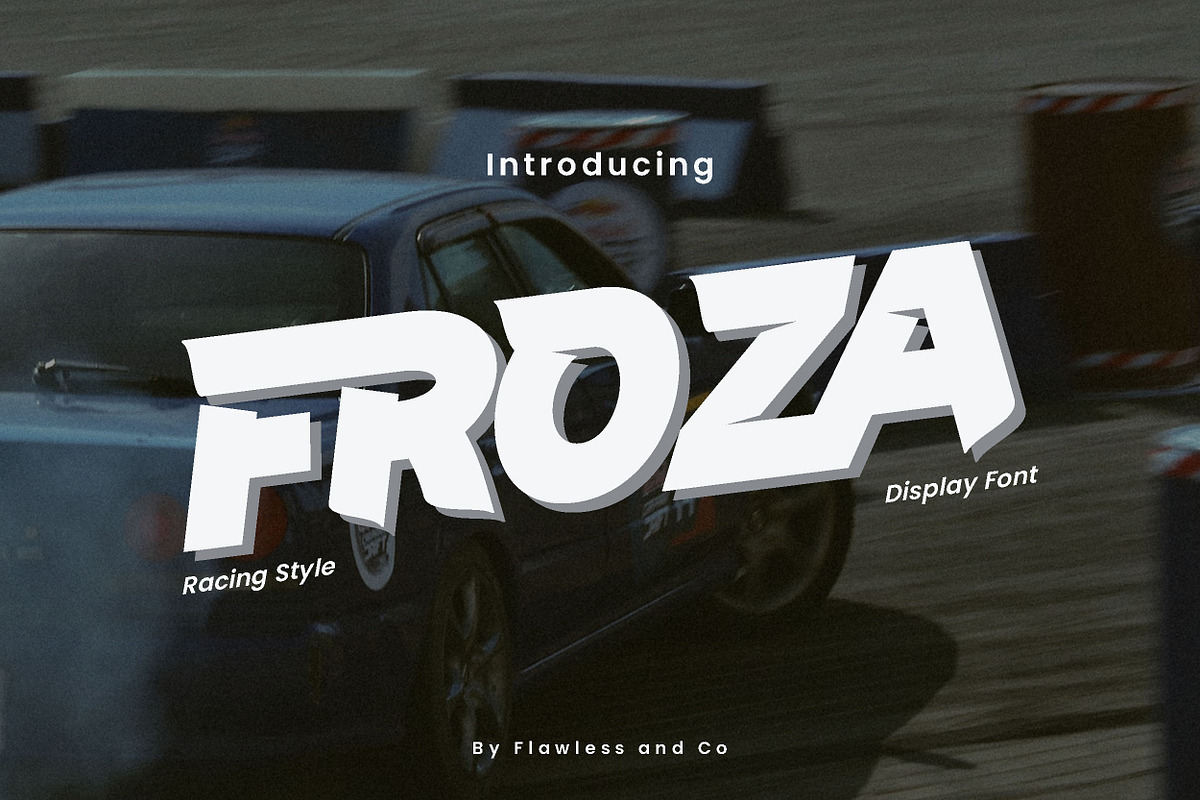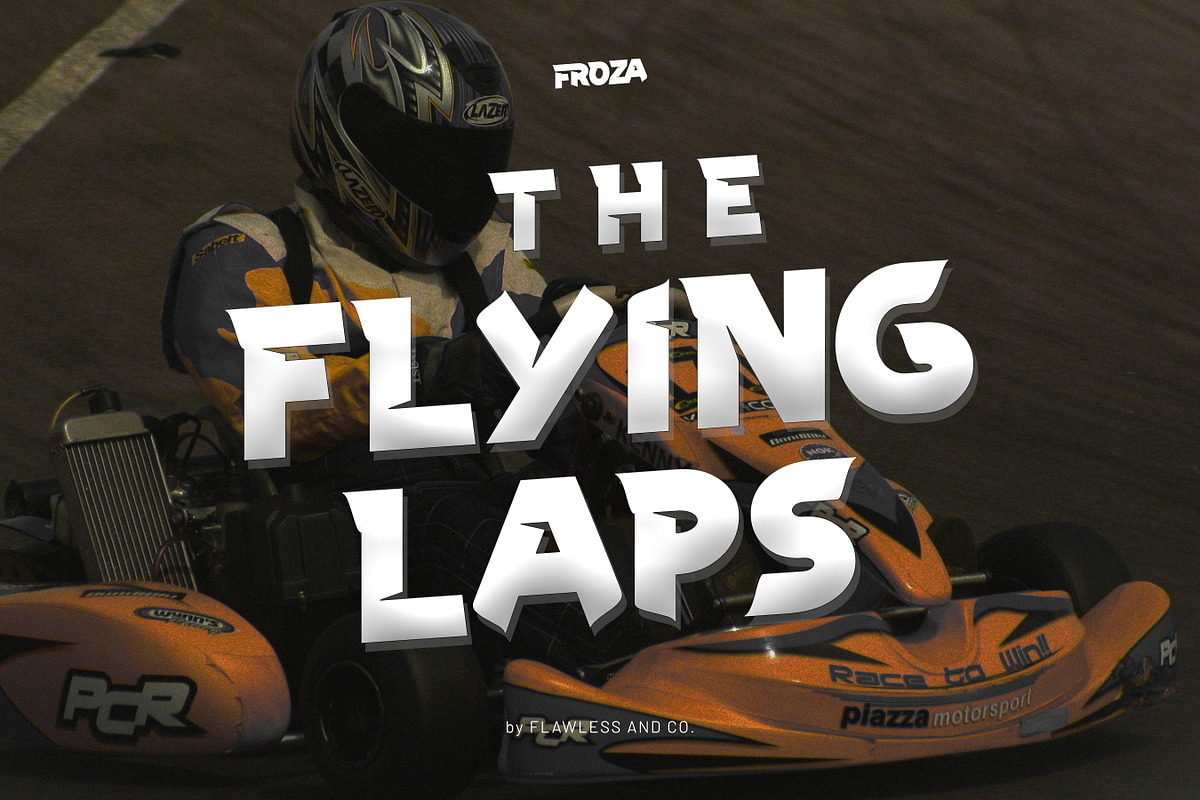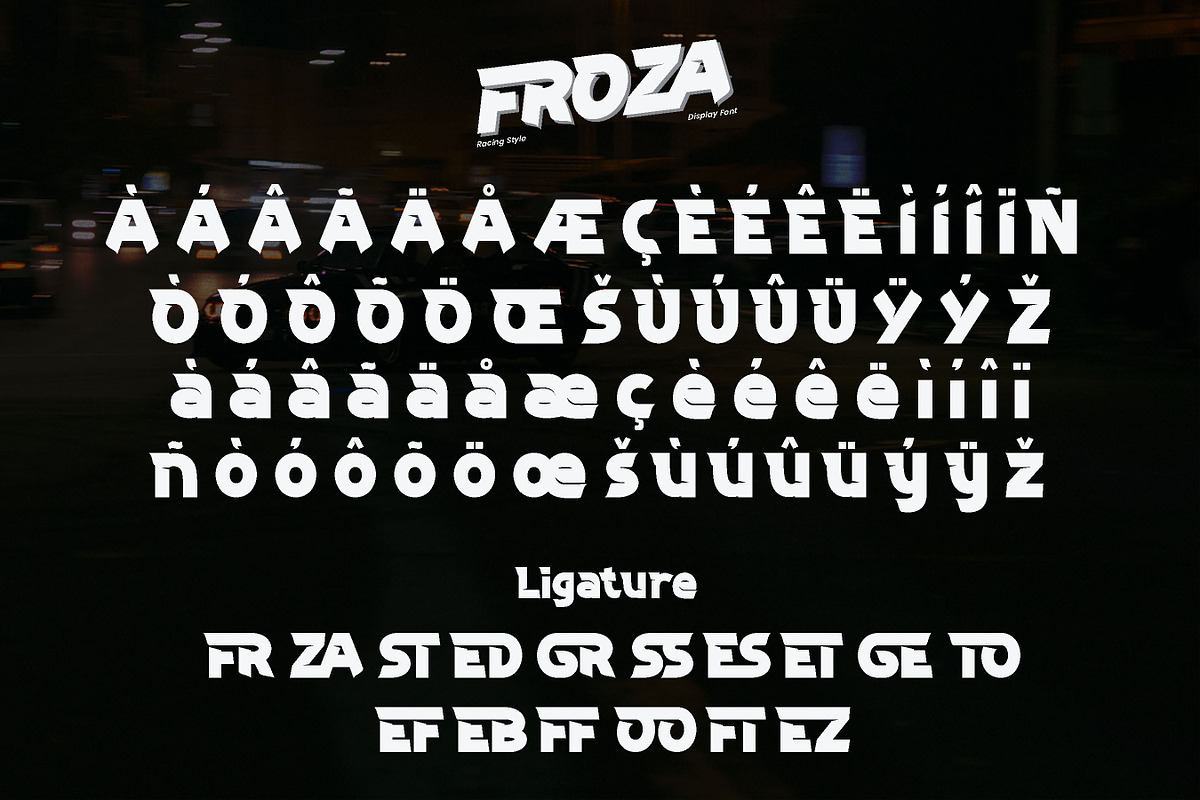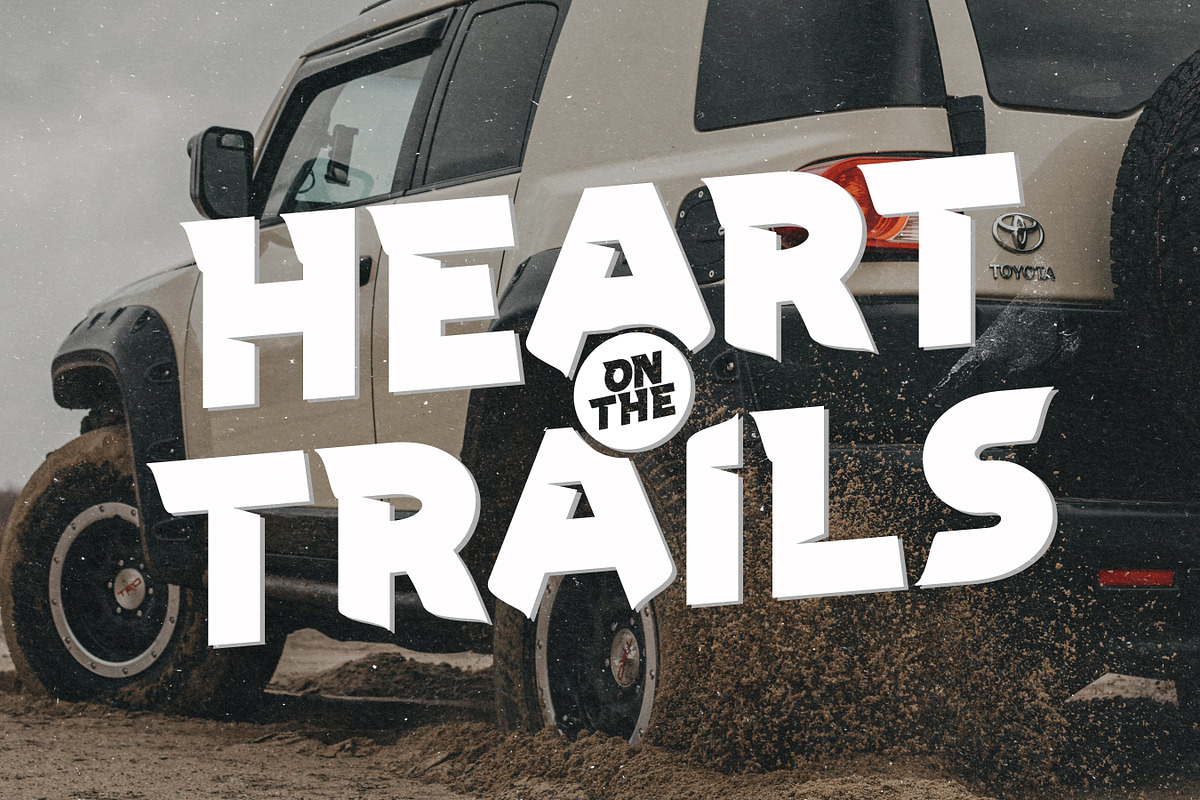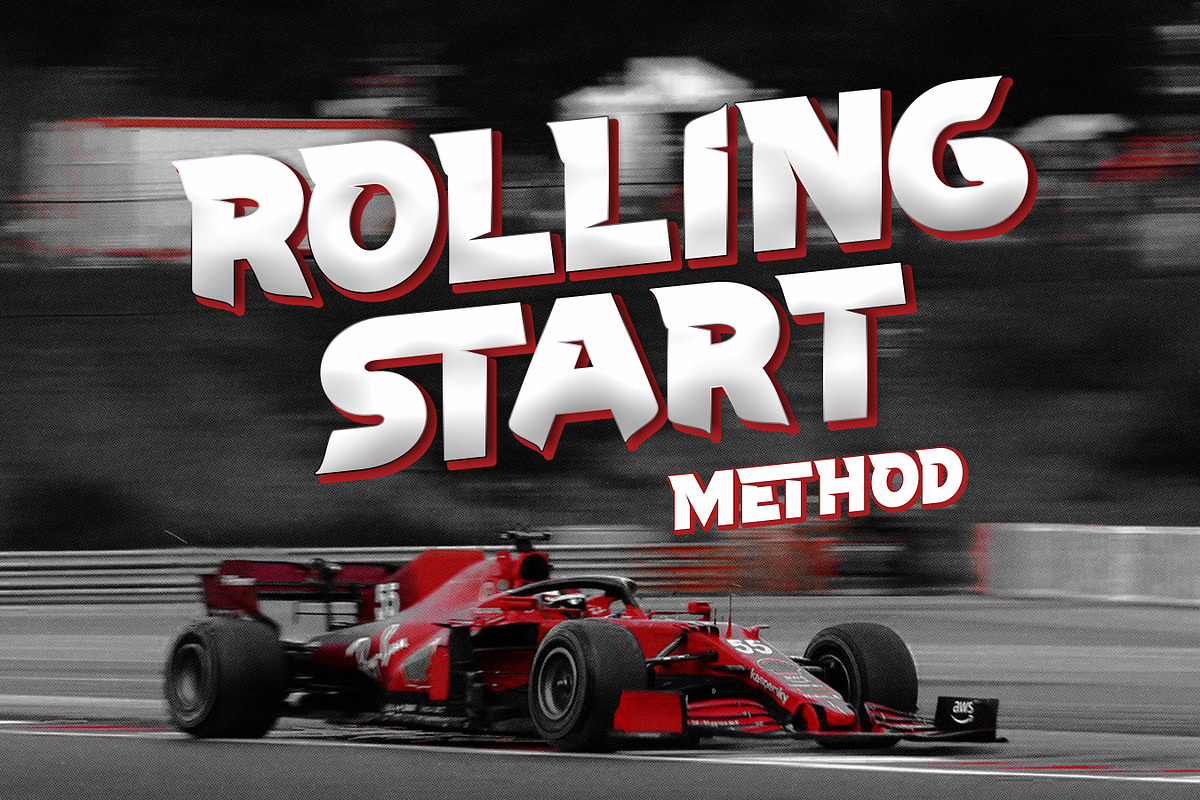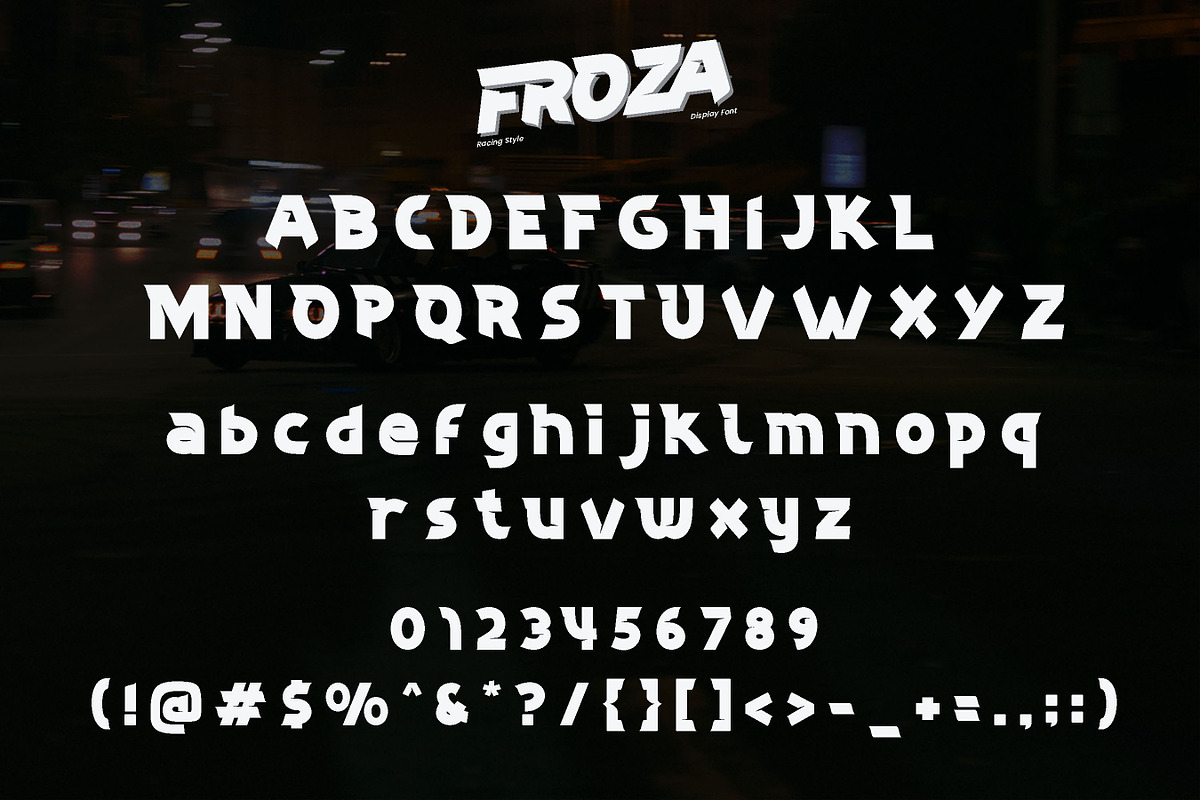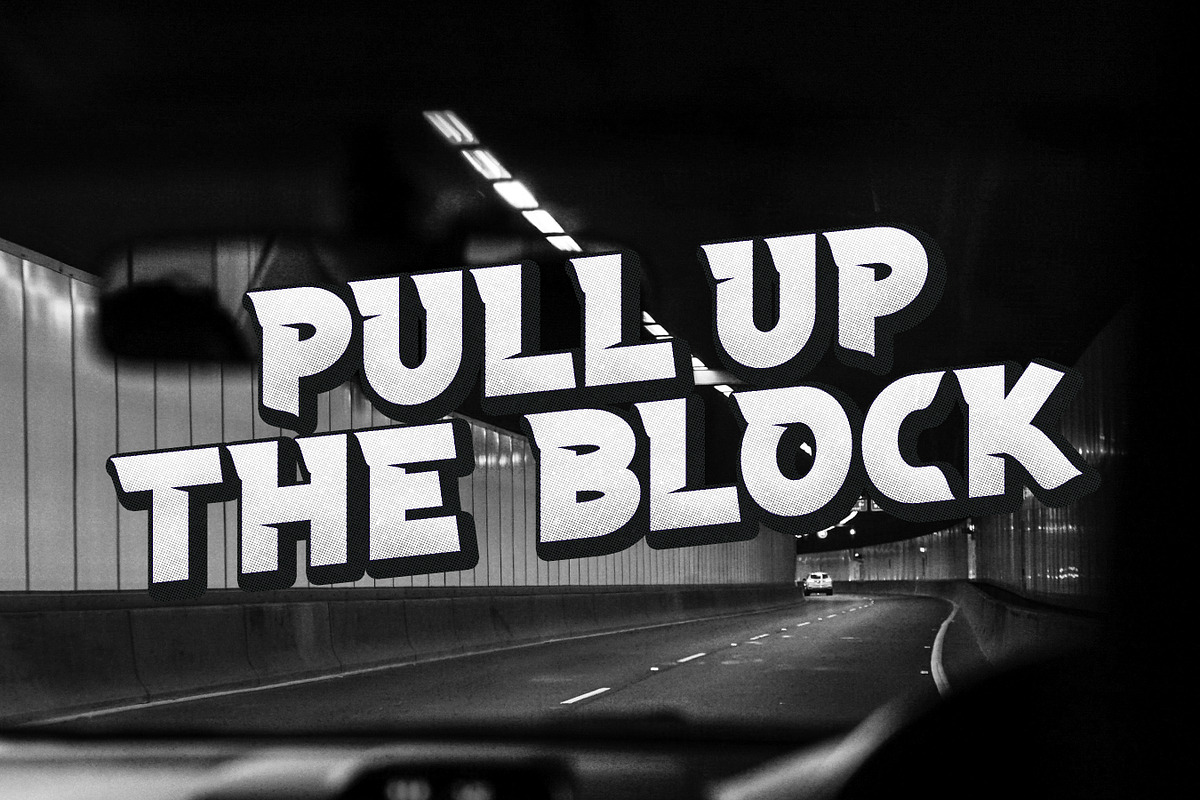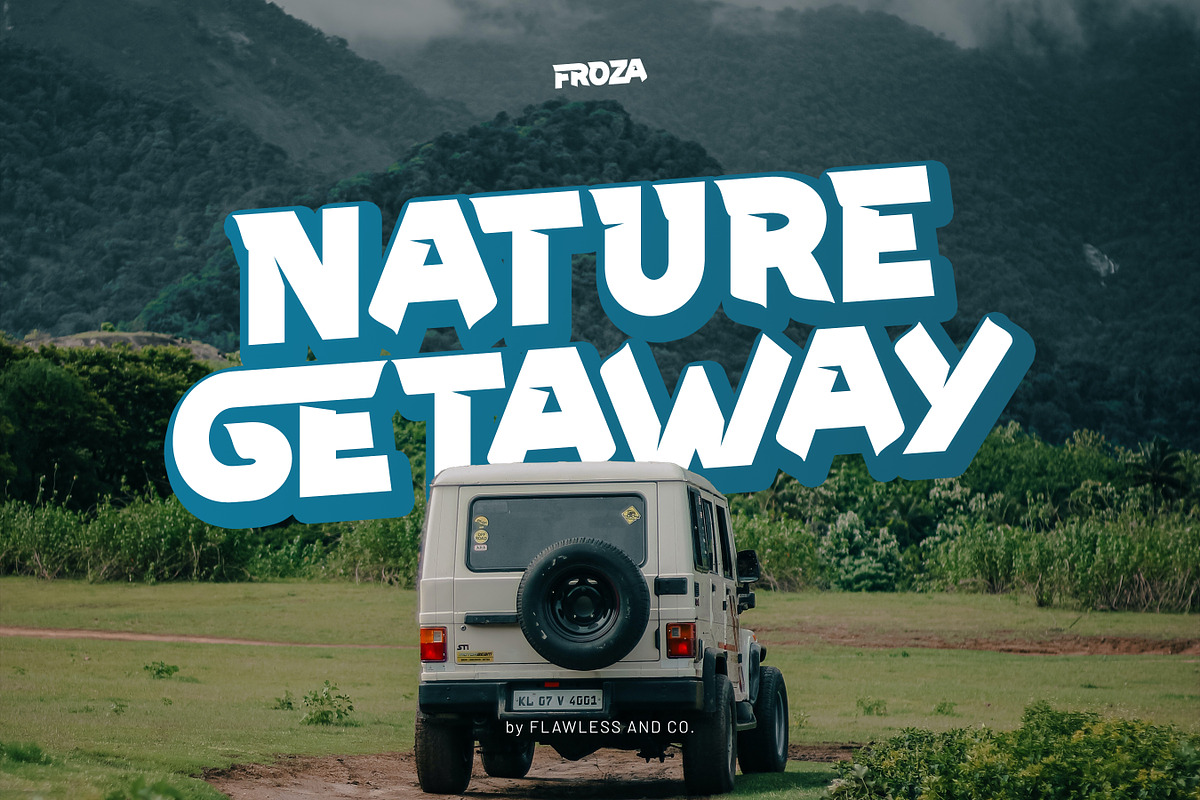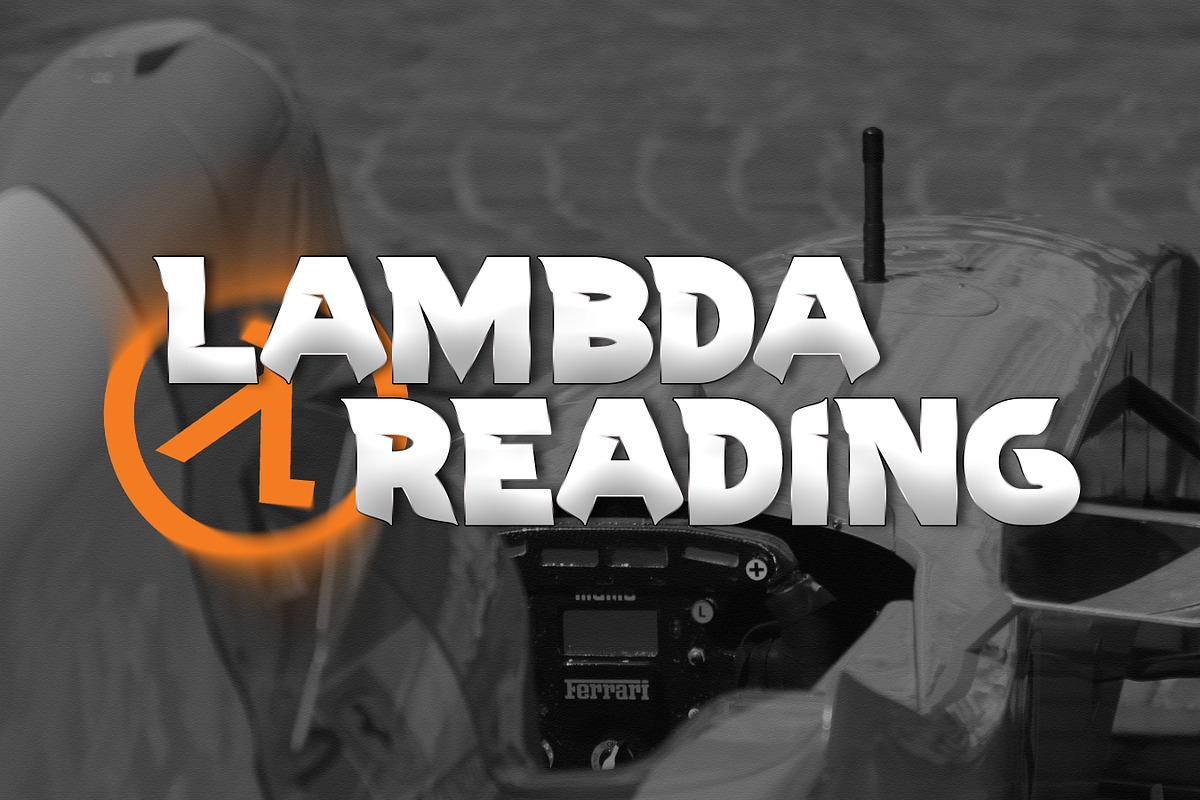
Froza - racing Display Font
Introducing "Froza" - a dynamic and powerful display font that captures the essence of speed, intensity, and adrenaline in the world of racing. With its bold and sleek letterforms, Froza is designed to make a lasting impact and evoke the excitement of high-speed races. This font is suitable for branding, business, logos, magazines, and others.